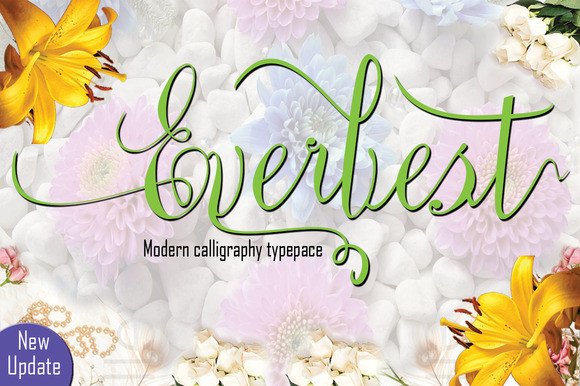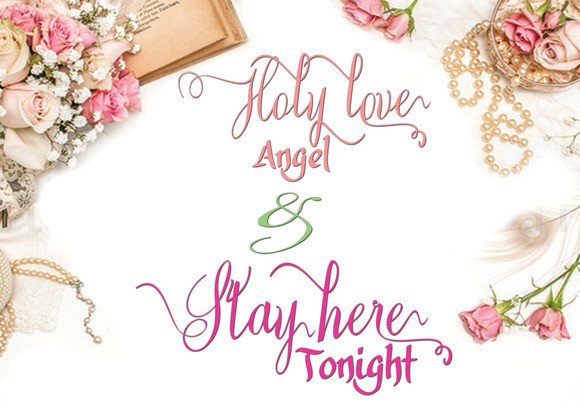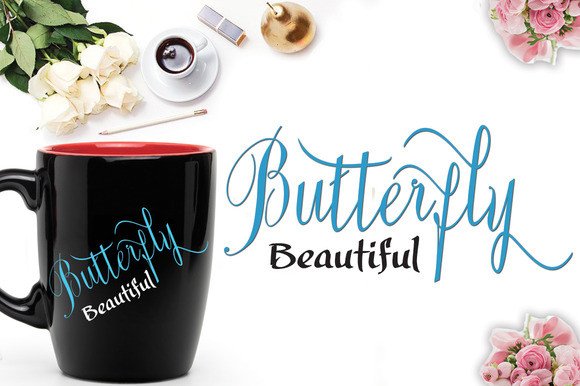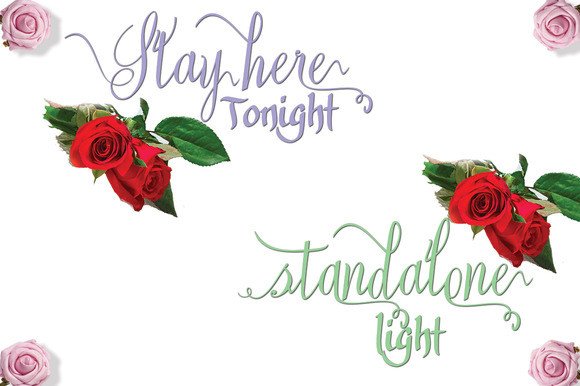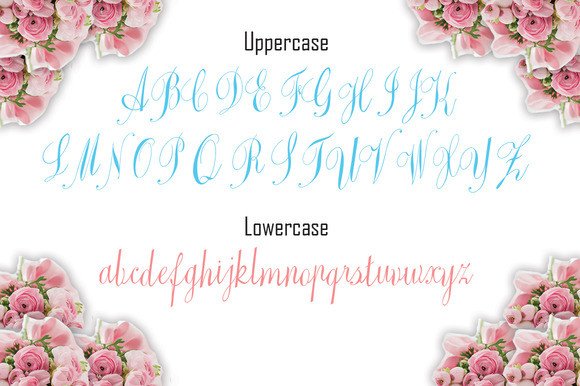
About Everbest Font
Everbest Script font calligraphy is modern with smooth lines, pointy-edged pull pens, and a blend of classic, modern and elegant touches.
Can be used for various purposes such as titles, signatures, logo’s, correspondences, wedding invitations, letterheads, signage’s, labels, newsletters, posters, badges and much more.
Everbest Script features 389 glyphs.